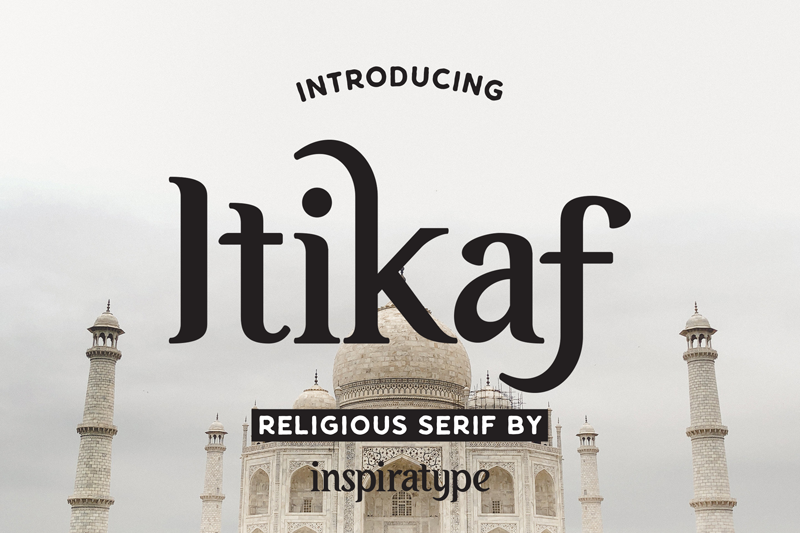
"Itikaf" is a font display is made by hand, inspired by classic posters. comes with uppercase, lowercase, numerals, punctuations and so many variations on each character include OpenType alternates, common ligatures and also additional swash to let you customize your designs. Perfect to use for Logotype, Letterhead, Poster, Apparel Design, Label and etc. THIS IS DEMO VERSION. Support us with buy commercial use license! For Commercial Use, grab it fast on this link https://creativemarket.com/Inspiratype/3803291-Itikaf-Religious-Serif check my another font on this https://creativemarket.com/Inspiratype Any question, drop me email to inspiratype@gmail.com (https://creativemarket.com/Inspiratype) Thanks |